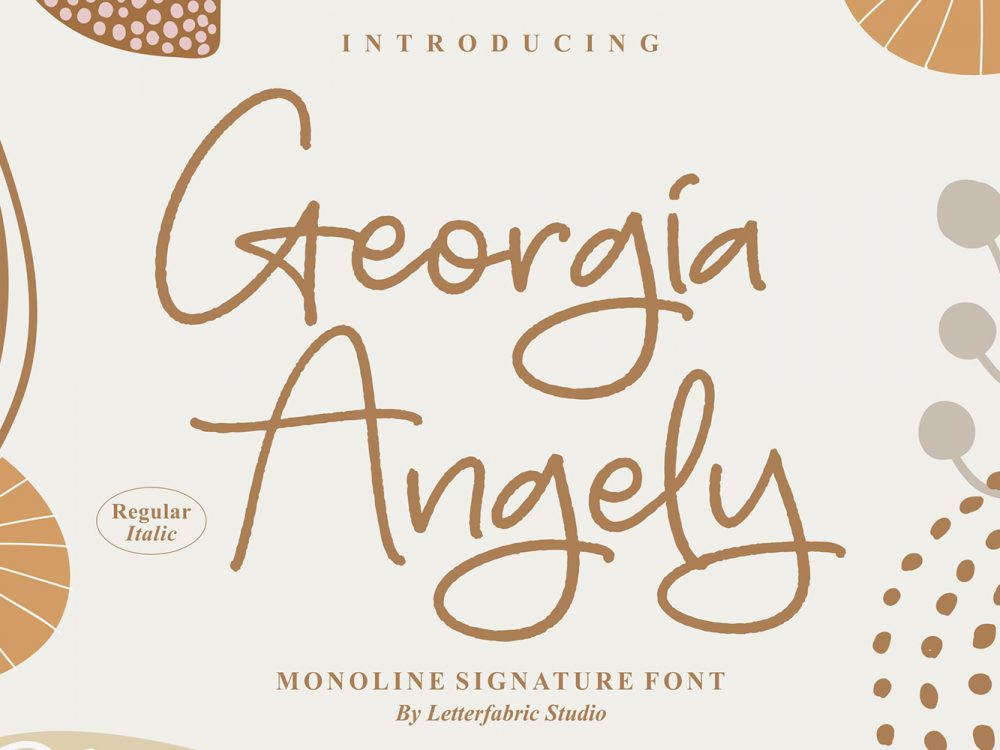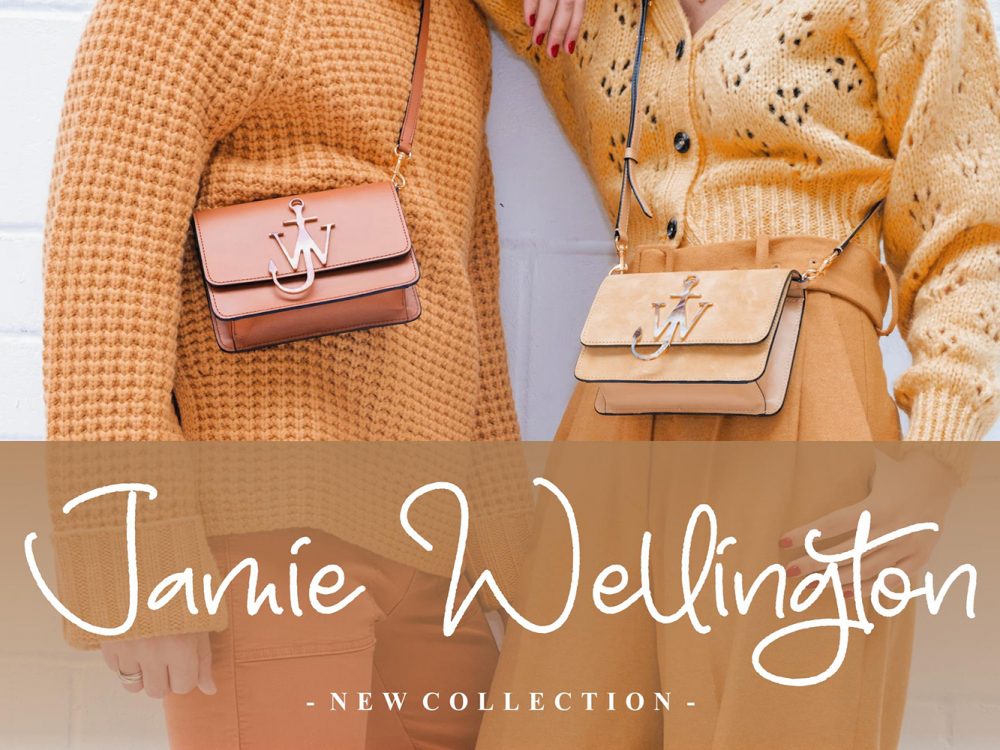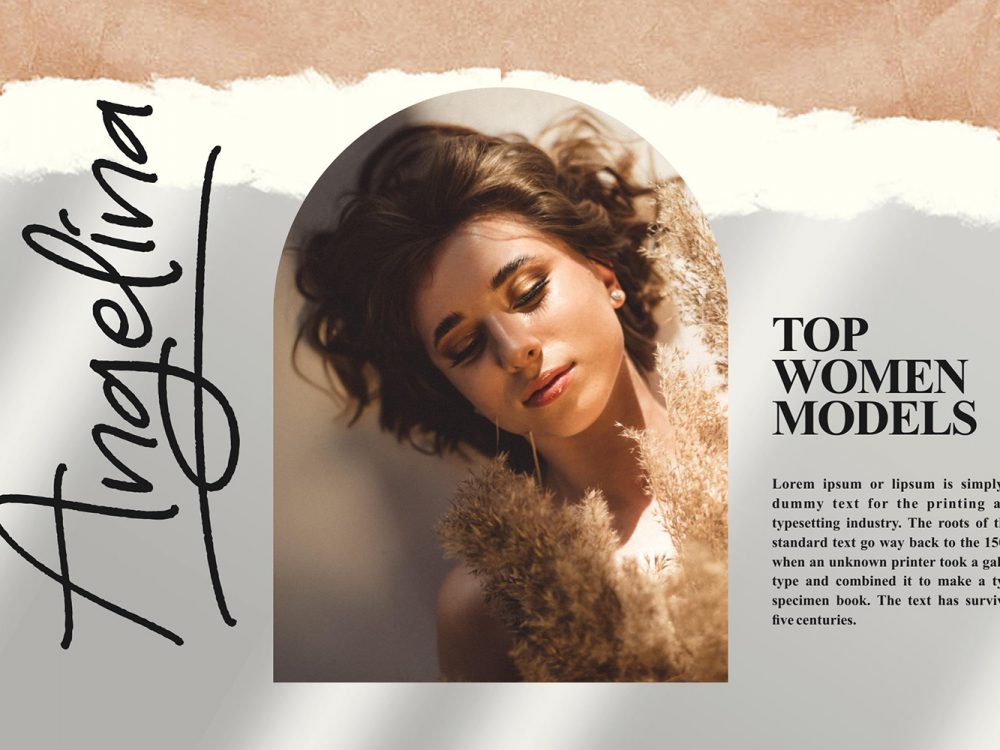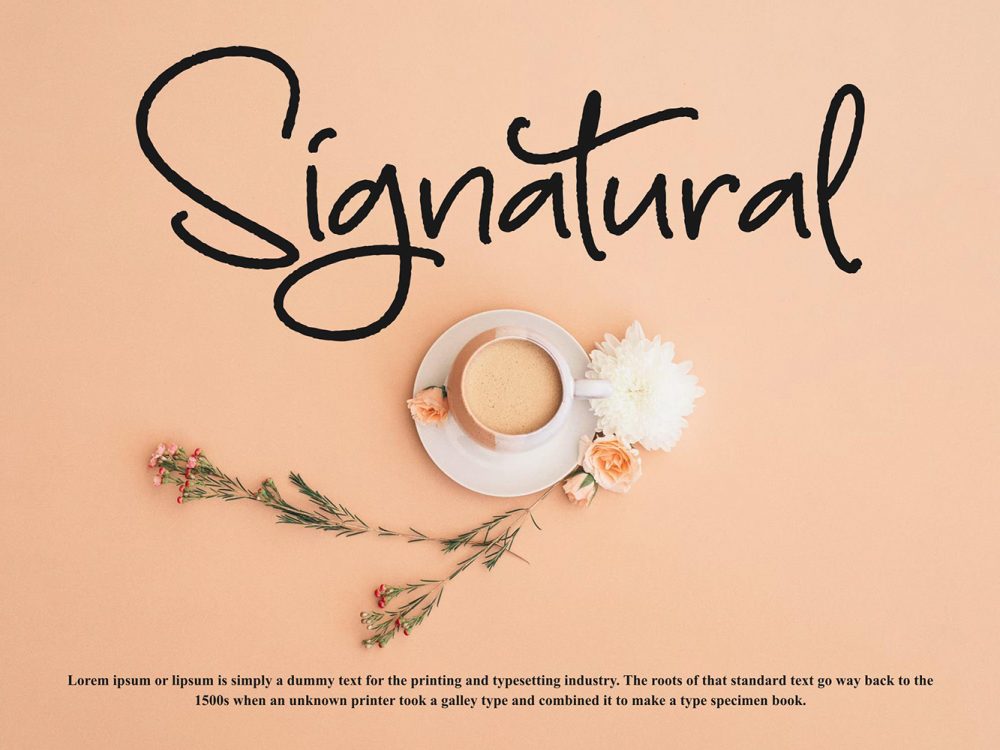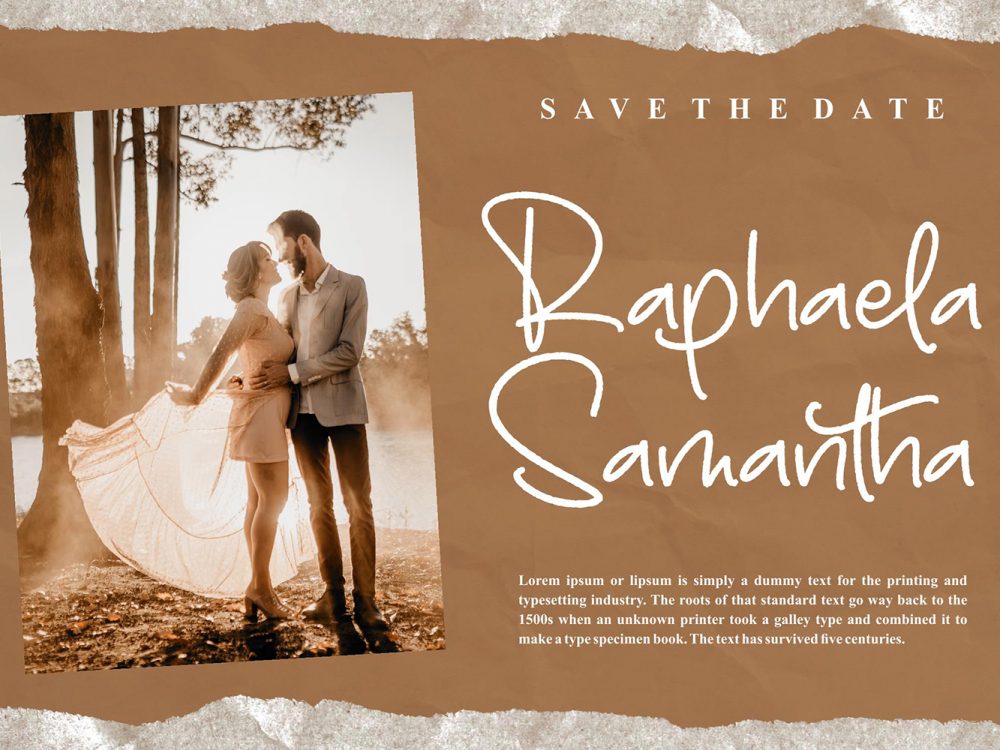
Georgia Angely Free Font
Georgia Angely Free Font is a beautiful handwritten font that simulates detailed brush writing and is very suitable for creating various design projects that require a scripted font. These can be posters, invitations, cards, branding, flyer prints, etc. If you wish to access more features and use them for commercial work please buy the full version.